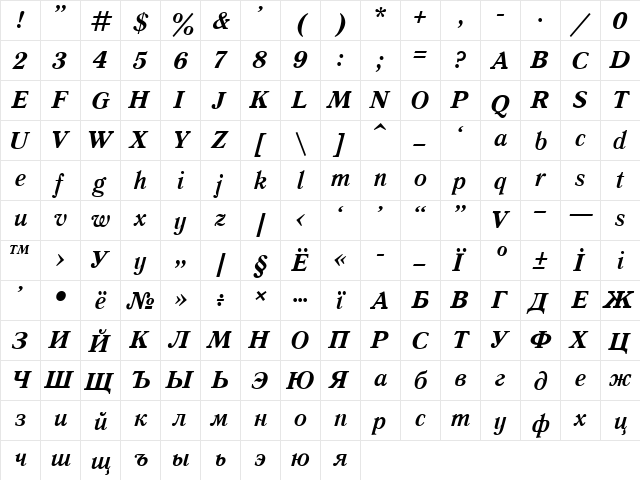
Quant Antiqua Bold Italic Font Preview
Design Context for Quant Antiqua Typeface
Quant Antiqua takes a measured approach to typography — its balanced proportions and neutral character make it a reliable workhorse for both digital and print work. The slanted form adds forward momentum and visual energy. The heavy weight commands attention and anchors typographic hierarchies.
Pro Tip: Try Quant Antiqua for annotation and caption copy alongside an upright companion — the contrast in angle creates a dynamic but ordered typographic system.